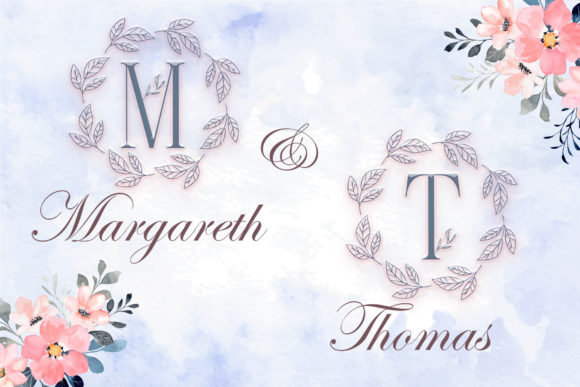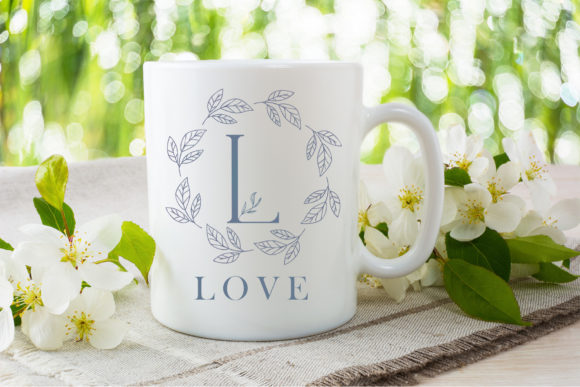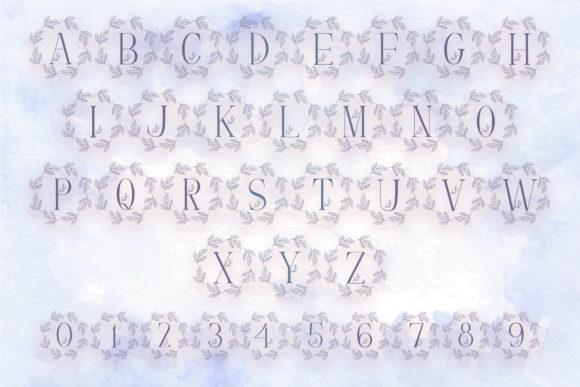
Introduction to Monogram Leaves Wreath Font
As a designer, have you ever stumbled upon that perfect font that makes your creative project shine? For me, it was the moment I discovered the Monogram Leaves Wreath Font. Its intricate details and elegant design instantly captured my heart, and I knew I had to share it with fellow creatives.
Imagine having a stunning, high-quality design resource that can elevate your branding, logo, and social media posts to the next level. With the Monogram Leaves Wreath Font, you can achieve just that. Whether you’re working on a special occasion, a business project, or simply want to add a touch of romance to your designs, this font is a valuable asset to have in your design arsenal.
Key Features of Monogram Leaves Wreath Font
- Unique Monogram Leaves Wreath design perfect for creative projects, weddings, and special occasions.
- High-quality, intricate design with a transparent background for seamless integration into any design resource.
- Perfect for adding a touch of elegance and sophistication to your design, whether it’s a logo, invitation, or other creative project.
Honest Review: Monogram Leaves Wreath Font
I recently had the chance to work with the Monogram Leaves Wreath Font, and I must say it’s been a game-changer for my creative projects. This beautiful font is a must-have for anyone looking to add a touch of elegance and sophistication to their designs.
- ✨ High-quality design: The Monogram Leaves Wreath Font is a stunning piece of typography that will elevate any design project.
- ✨ Transparent background: This font is perfect for use on transparent backgrounds, allowing for seamless integration with other design elements.
While the Monogram Leaves Wreath Font is an excellent addition to any design resource, there are a few limitations to be aware of:
- ⚠️ Limited character set: The font only includes a limited set of characters, which may not be suitable for longer pieces of text.
- ⚠️ Not ideal for bold text: Due to its delicate design, the Monogram Leaves Wreath Font may not be the best choice for bold or emphasis text.
Overall, I’m thoroughly impressed with the Monogram Leaves Wreath Font. It’s a beautiful, high-quality design resource that’s perfect for creative projects requiring a touch of sophistication. If you’re looking to elevate your designs, I highly recommend giving it a try.
To get the most out of this font, experiment with different font sizes, colors, and combinations to create unique and eye-catching designs. You can also use it in conjunction with other design elements, such as images or graphics, to add depth and interest to your projects.
The Monogram Leaves Wreath Font is ideal for various creative projects, including wedding invitations, baby shower decorations, and holiday cards. You can also use it to create custom logos, branding materials, or promotional graphics.